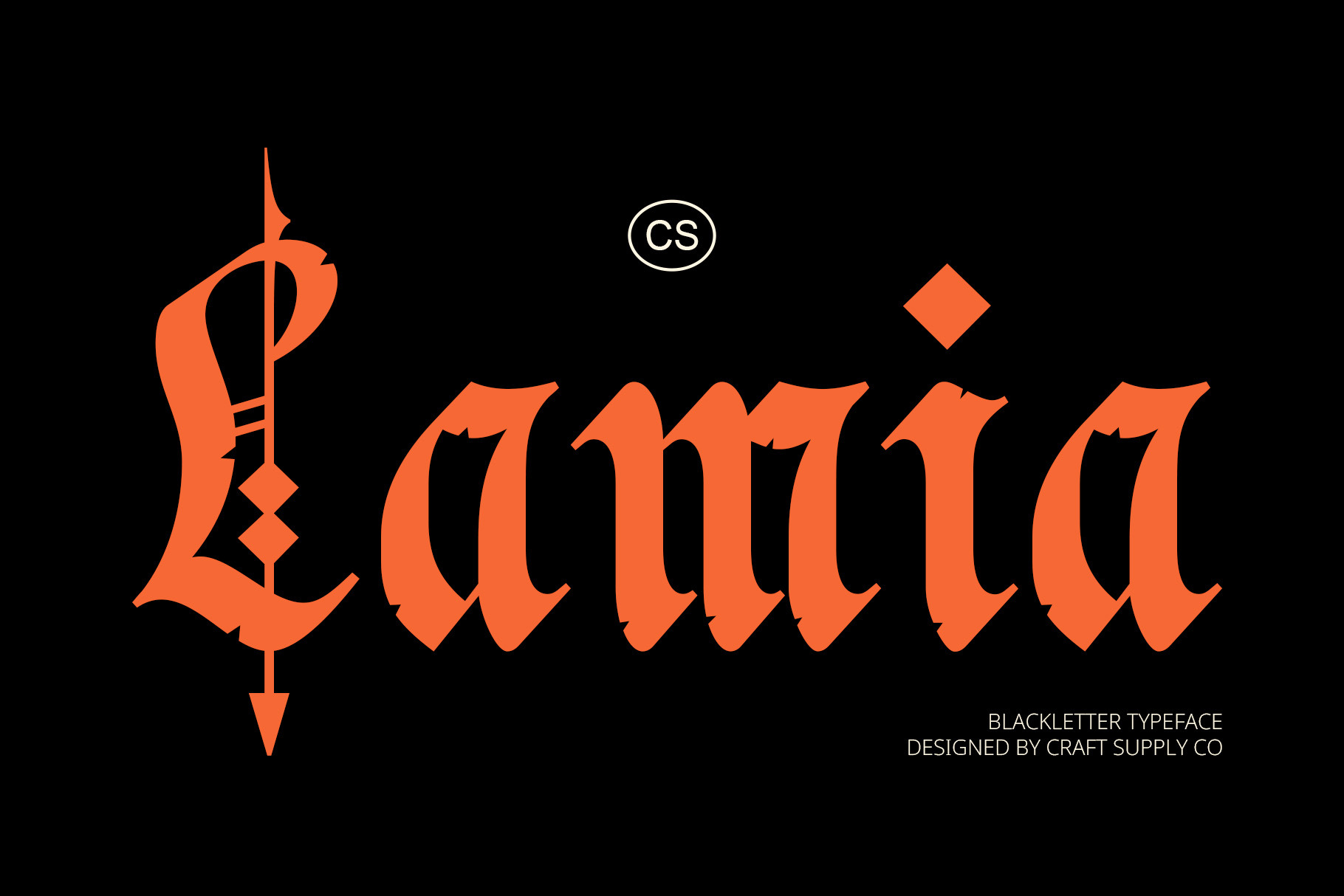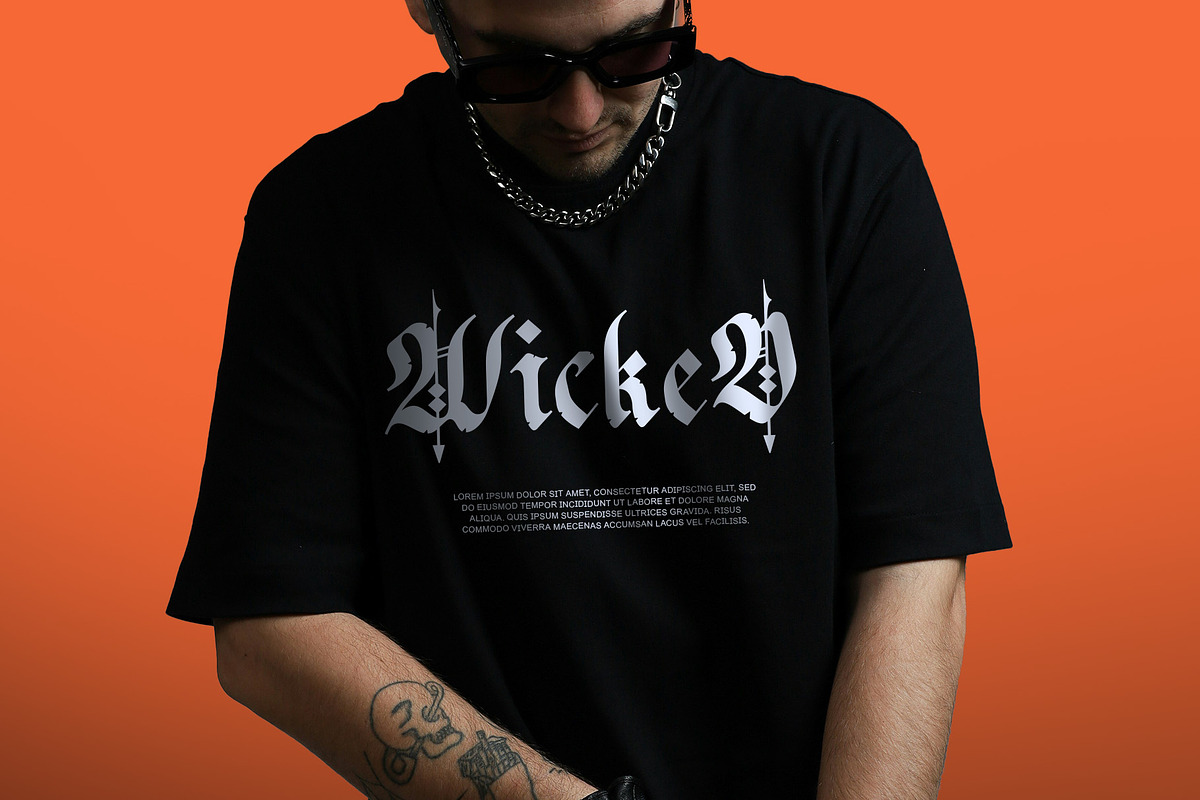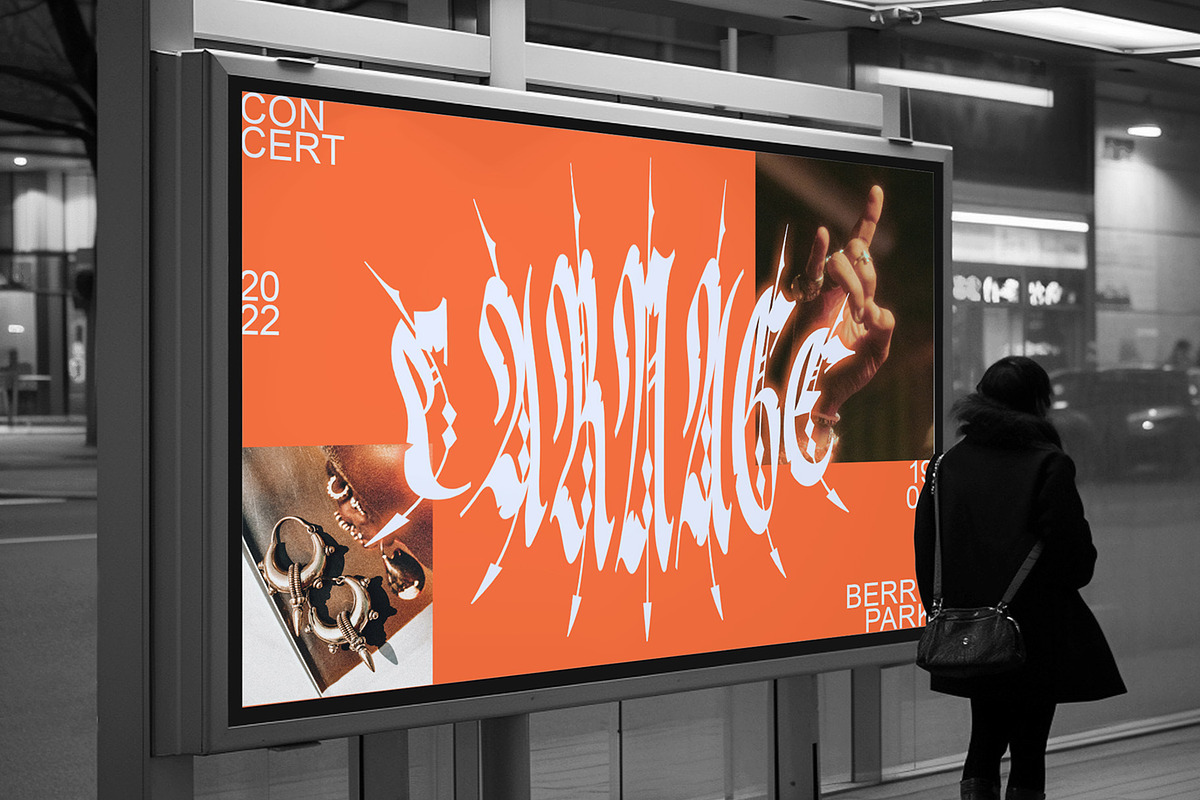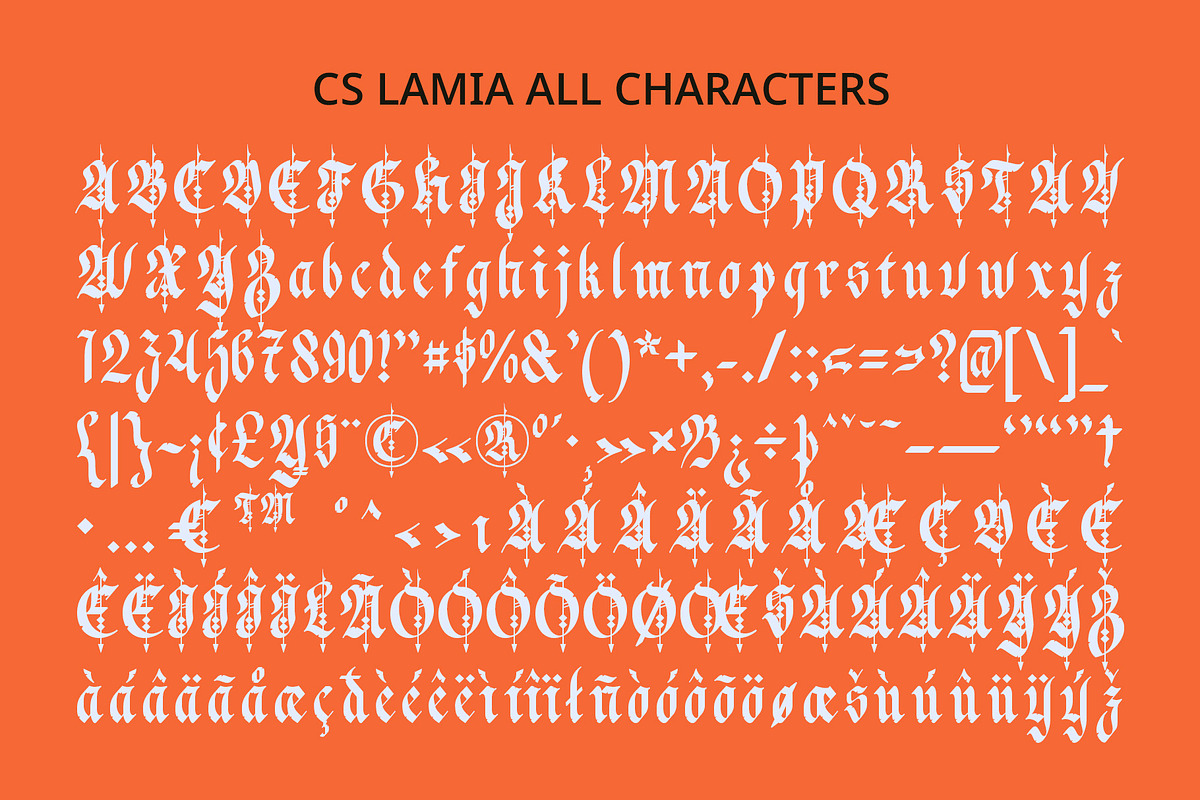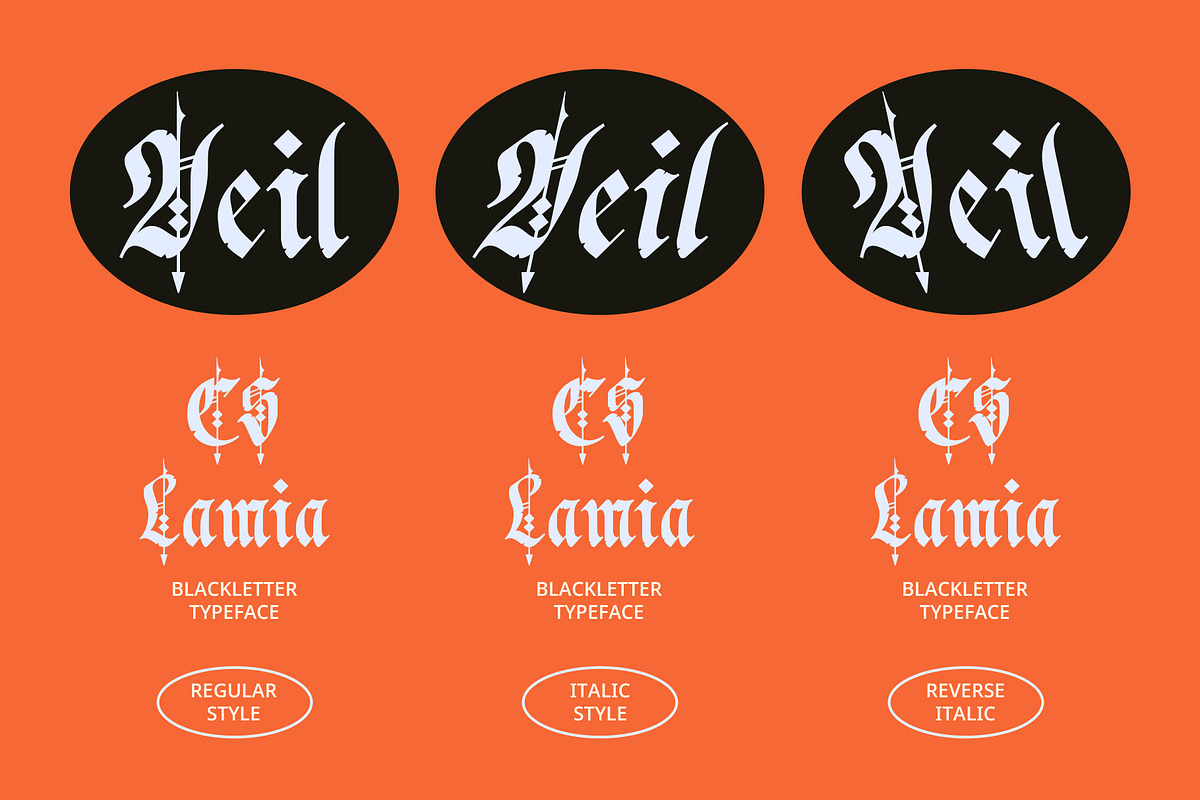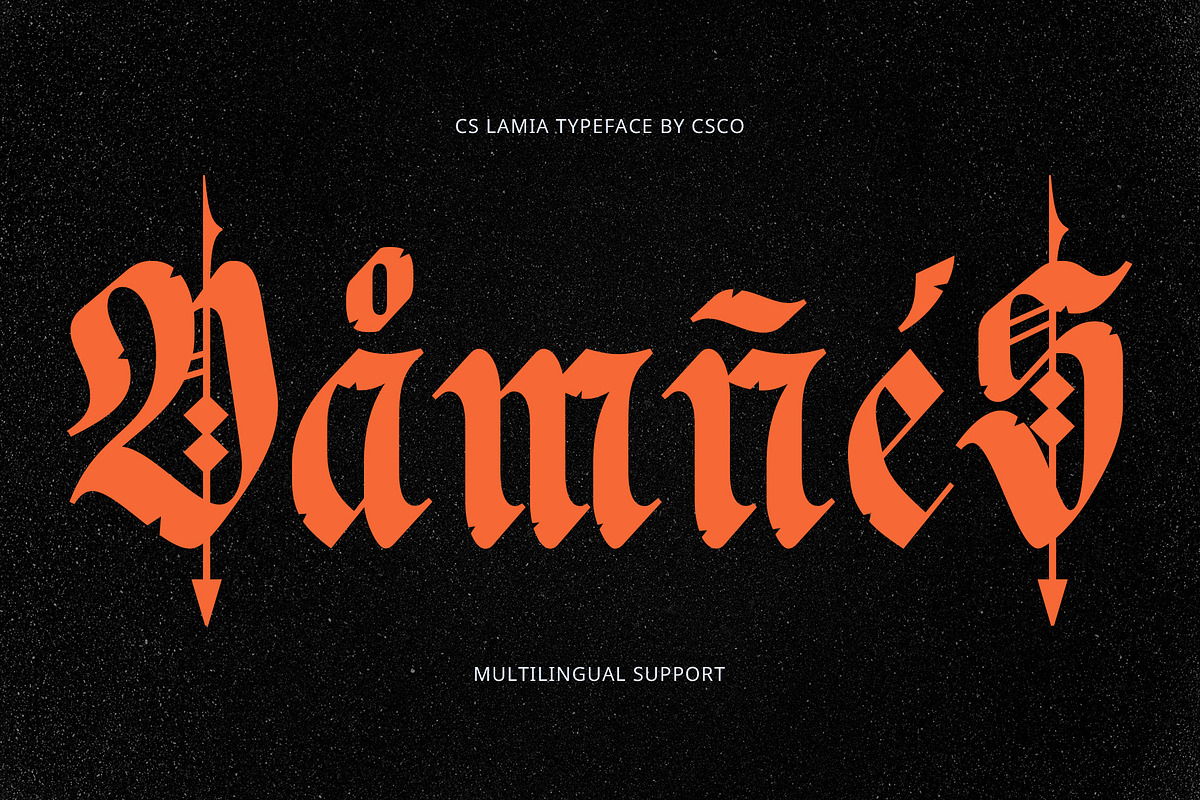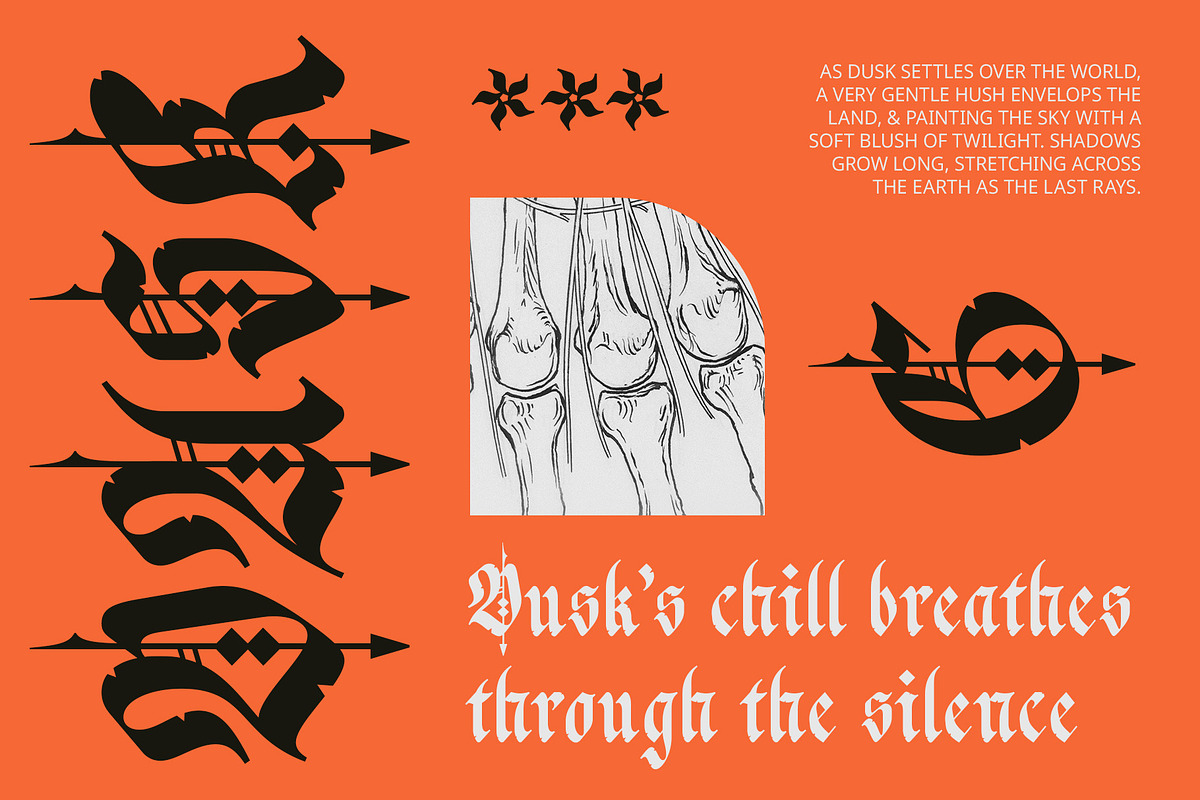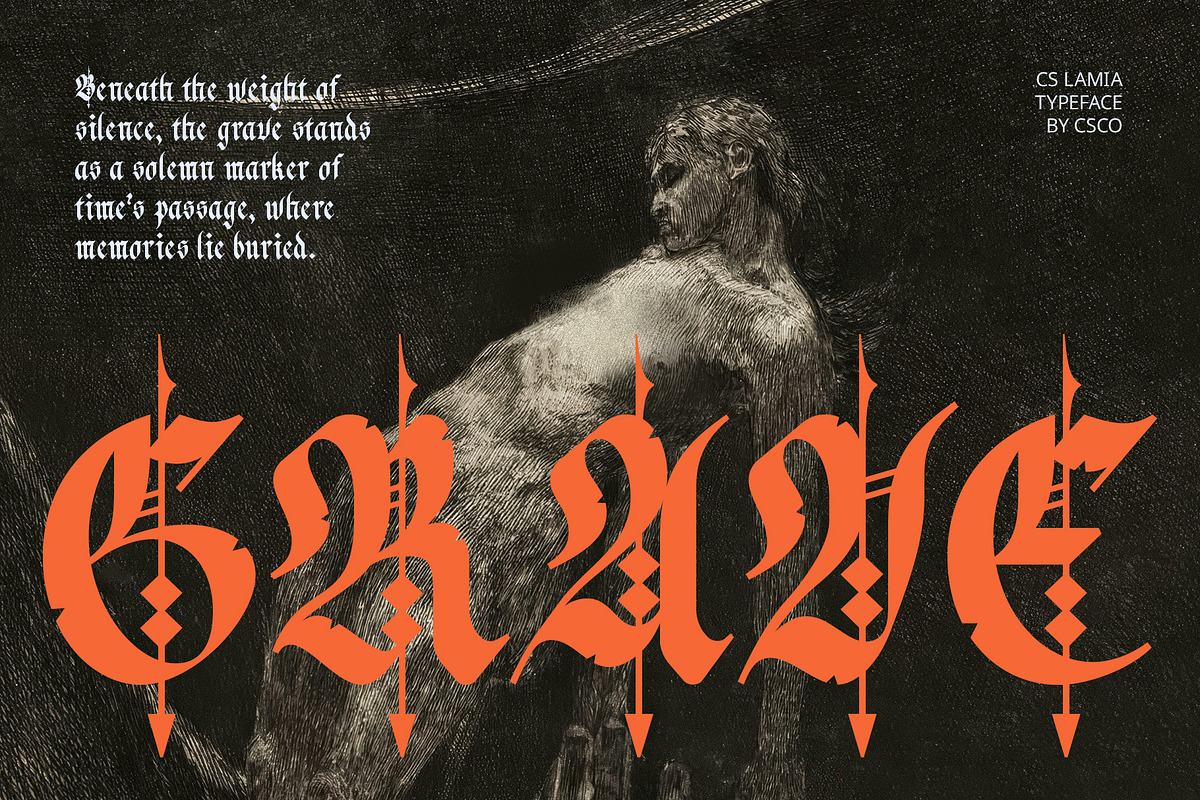
CS Lamia – Blackletter Font
CS Lamia Font: Bold Blackletter Font with Medieval Flair
Vintage and Dramatic Design CS Lamia is a striking blackletter display font characterized by its sharp, bold, and intricately decorative letterforms. This font draws inspiration from the iconic style of medieval scripts, encapsulating an era of rich history and artistry that evokes a sense of drama, formality, and vintage charm. The intricate design of each letter gives CS Lamia a unique and authoritative presence, making it a standout choice for projects that require a visually striking and majestic touch.
Majestic and Historical Appeal Rooted in the tradition of ancient manuscripts and royal crests, CS Lamia emphasizes historical elements with a grandeur that reflects both tradition and honor. The sharp angles and ornate details contribute to an aura of mystery and elegance, making it ideal for creating a classic, formal atmosphere in your designs.
Perfect for Traditional and Cultural Projects This blackletter font is perfect for a wide range of applications, including logos, posters, book covers, and any creative project that seeks to highlight cultural heritage and traditional aesthetics. Its bold and decorative style adds an air of sophistication, making it the perfect choice for designs that aim to evoke timeless elegance, honor, and historical significance.
- CS Lamia Regular
- CS Lamia Italic
- CS Lamia Reverse Italic